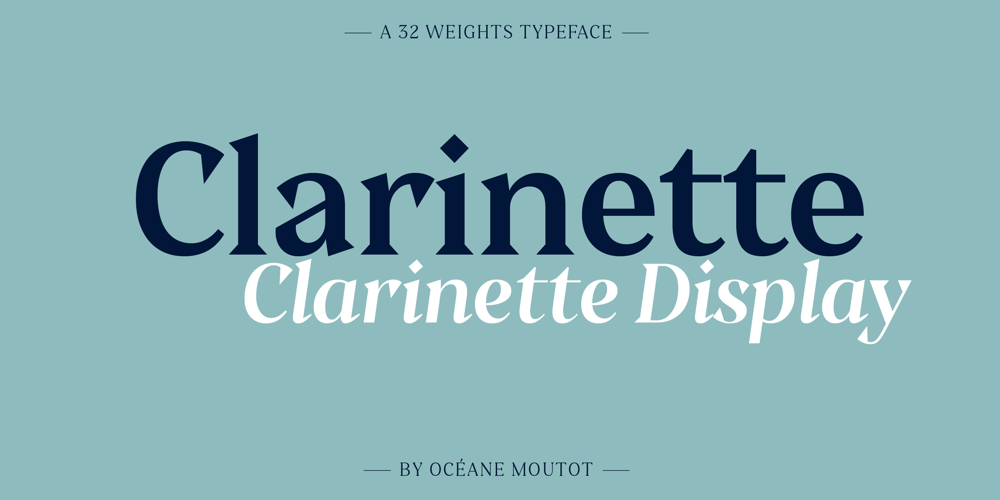
Clarinette Font Family was designed by Océane Moutot and published by Océane Moutot. Clarinette contains 32 styles and family package options. Clarinette is a sophisticated 32-style typeface designed to strike a harmonious balance between softness and sharpness. Carefully crafted with triangular serifs, it exudes visual strength and carries a distinctive personality. Meanwhile, its gentle and dynamic lines add a touch of elegance.With a wide range of weights, Clarinette offers exceptional versatility. Its display and book versions enable seamless multitasking, making it suitable for various applications. From magazine titles to newspapers and logotypes, its high contrast version demands attention. Similarly, the low contrast variant provides a practical choice for text and editing purposes.Embrace the artistry of Clarinette, where the fusion of softness and precision creates an enchanting visual presence. Let your designs transcend boundaries and captivate with refined elegance.